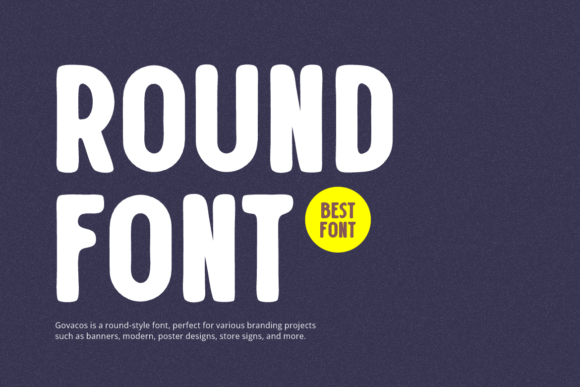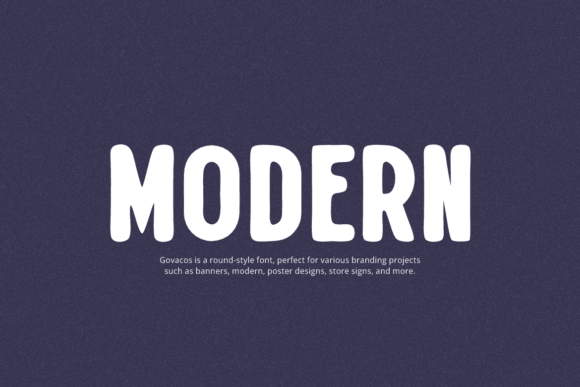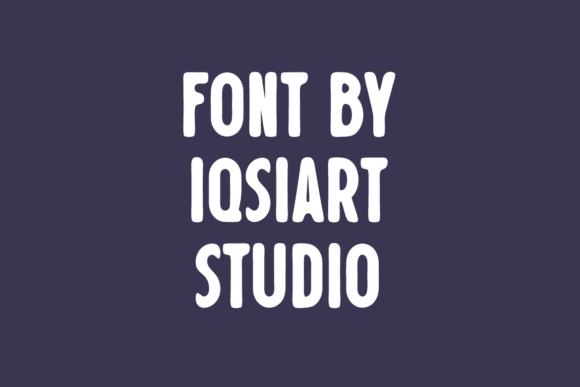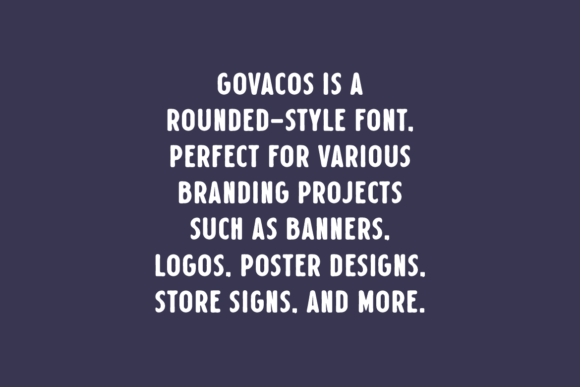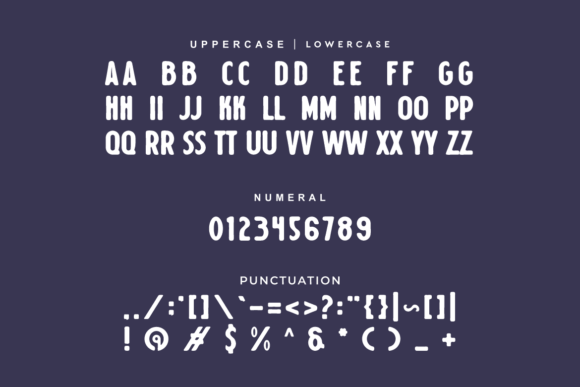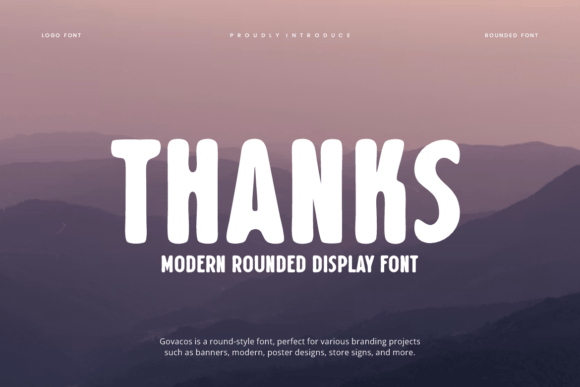
Introducing Govacos Font: A Bold and Authentic Display Typeface
Are you looking for a font that can add a touch of boldness and authenticity to your design projects? Look no further than Govacos Font! This stunning display typeface is perfect for a variety of design needs, from branding and advertising to packaging and digital media. In this article, we’ll take a closer look at Govacos Font, its features, and how it can elevate your designs.
What is Govacos Font?
Govacos Font is a bold and authentic display typeface designed to make a statement. Its unique and eye-catching design makes it perfect for headlines, titles, and other display text. The font is available in two formats: OTF (OpenType) and TTF (TrueType), ensuring compatibility with a wide range of design software and platforms.
Key Features of Govacos Font
- Bold and Authentic Design: Govacos Font boasts a bold and authentic design that’s sure to grab attention.
- Versatile: This font is perfect for a variety of design needs, from branding and advertising to packaging and digital media.
Benefits of Using Govacos Font
So why choose Govacos Font for your design projects? Here are just a few benefits:
- Adds Visual Impact: Govacos Font is designed to grab attention and add visual impact to your designs.
- Enhances Branding: This font is perfect for creating bold and memorable brand identities.
- Versatile and Flexible: Govacos Font can be used in a wide range of design applications, from print to digital media.
Tips for Using Govacos Font
Here are a few tips for getting the most out of Govacos Font:
- Use it for Headlines and Titles: Govacos Font is perfect for headlines and titles, where its bold and authentic design can really shine.
- Experiment with Font Sizes and Colors: Don’t be afraid to experiment with different font sizes and colors to create visual interest and hierarchy.
- Pair it with Other Fonts: Govacos Font can be paired with other fonts to create a unique and visually appealing typography combination.